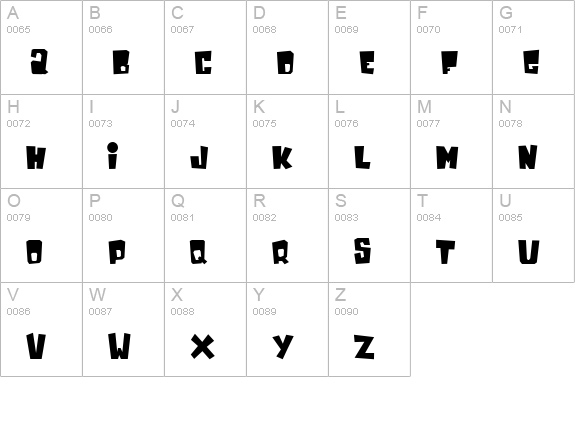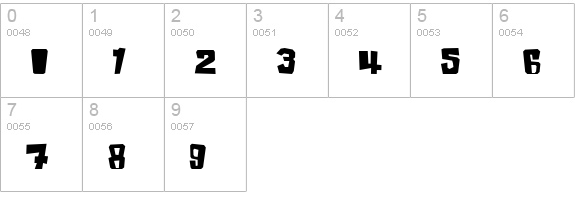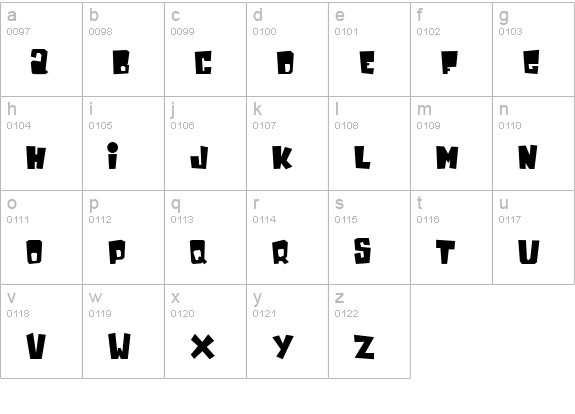
InkyBear Font Details
Introducing InkyBear, a captivating and versatile font that is as delightful as it is distinctive. With its charming curves and playful strokes, InkyBear adds a touch of whimsy to any design project, making it perfect for everything from invitations and logos to posters and social media graphics. But what truly sets InkyBear apart is its accessibility - it is absolutely free! Yes, you read that right. InkyBear is freely available to download at FontsMarket.com, ensuring that designers, creatives, and font enthusiasts alike can easily incorporate this enchanting typeface into their work without any constraints. InkyBear's unique character shines through in every letter, effortlessly blending elegance with a hint of quirkiness. Its smooth lines and intricate details make it a joy to work with, allowing you to effortlessly convey your message with style and finesse. Whether you're aiming for a vintage-inspired look, a playful and fun aesthetic, or something in between, InkyBear has got you covered. Its versatility knows no bounds, effortlessly adapting to any design concept or project, and adding a touch of personality that truly sets your work apart from the crowd. So why wait? Embrace the charm and creativity of InkyBear today and unlock a world of possibilities for your next design endeavor. Download this delightful font for free at FontsMarket.com and let your imagination run wild. InkyBear is here to help you make a lasting impression and leave your audience in awe.